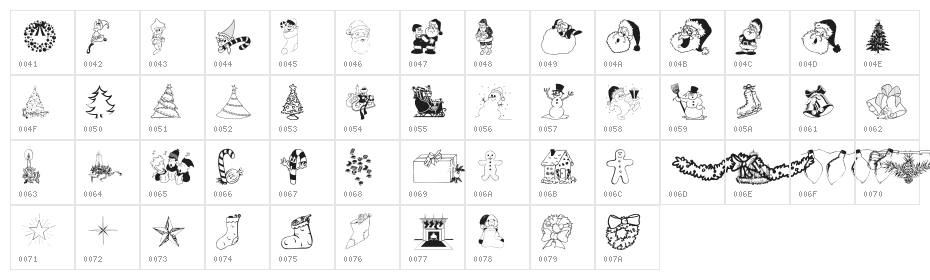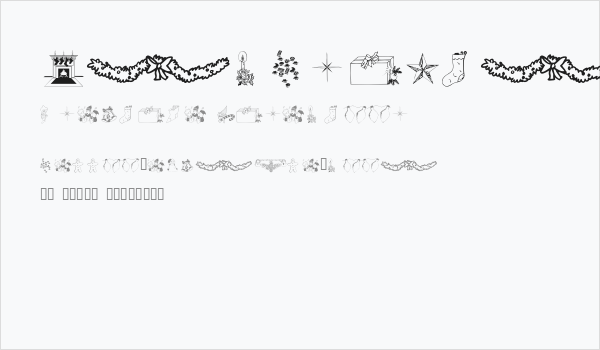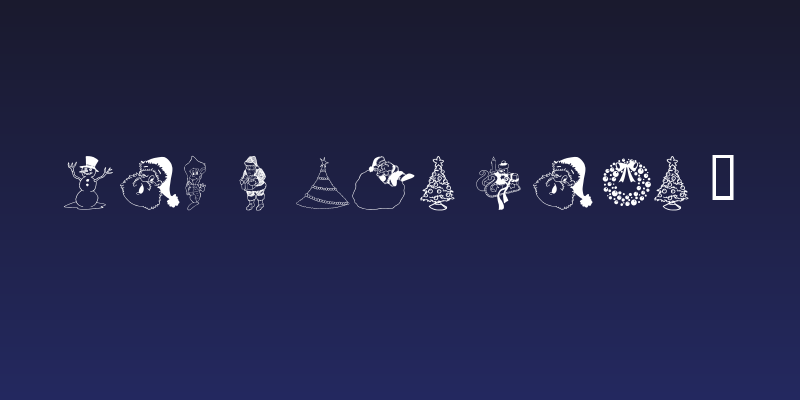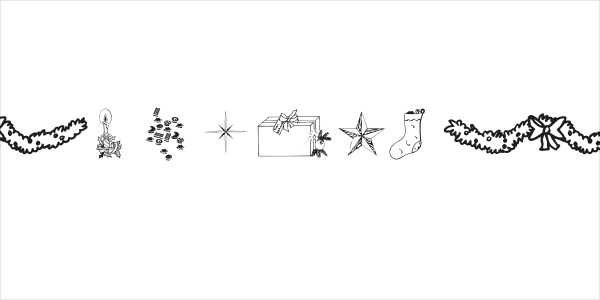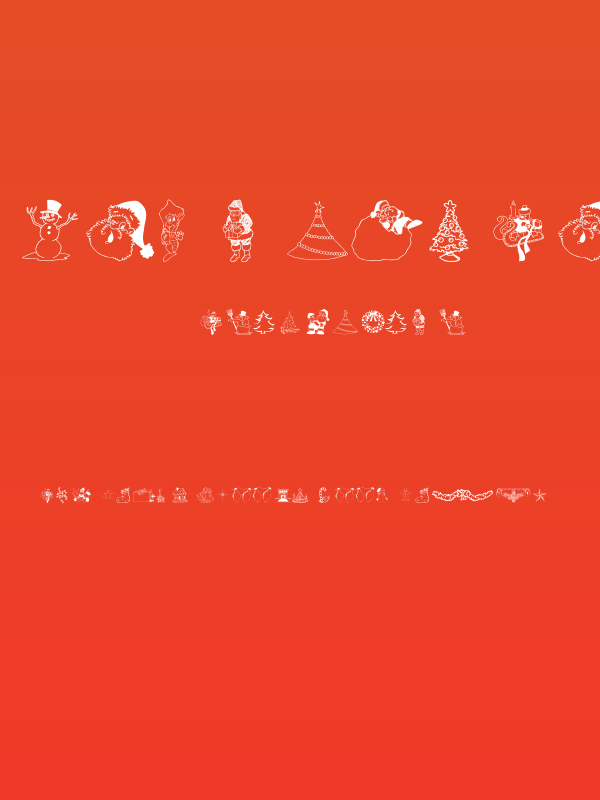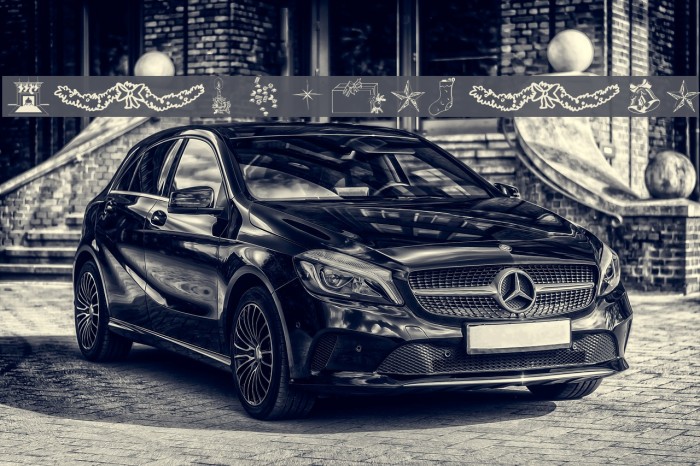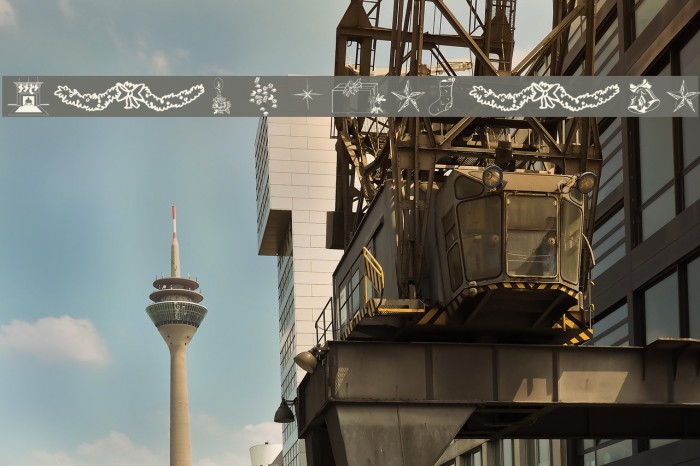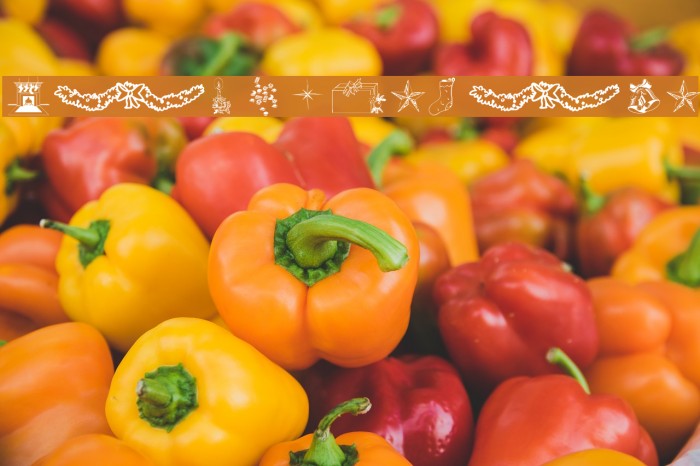
wmchristmas1 Font
wmchristmas1 Description
A decorative dingbat font featuring a variety of Christmas-themed illustrations such as Santa Claus, Christmas trees, snowmen, gifts, stockings, stars, and festive ornaments. Each character is represented by a unique holiday icon, rendered in a hand-drawn, black-and-white style with fine lines and playful details.
| Overall Style | Decorative, Festive, Playful |
| Use Case | Decorative elements, Themed graphics, Holiday designs |
| Proposed Projects | Holiday cards, festive invitations, seasonal posters, gift tags, scrapbooking, and digital decorations. |